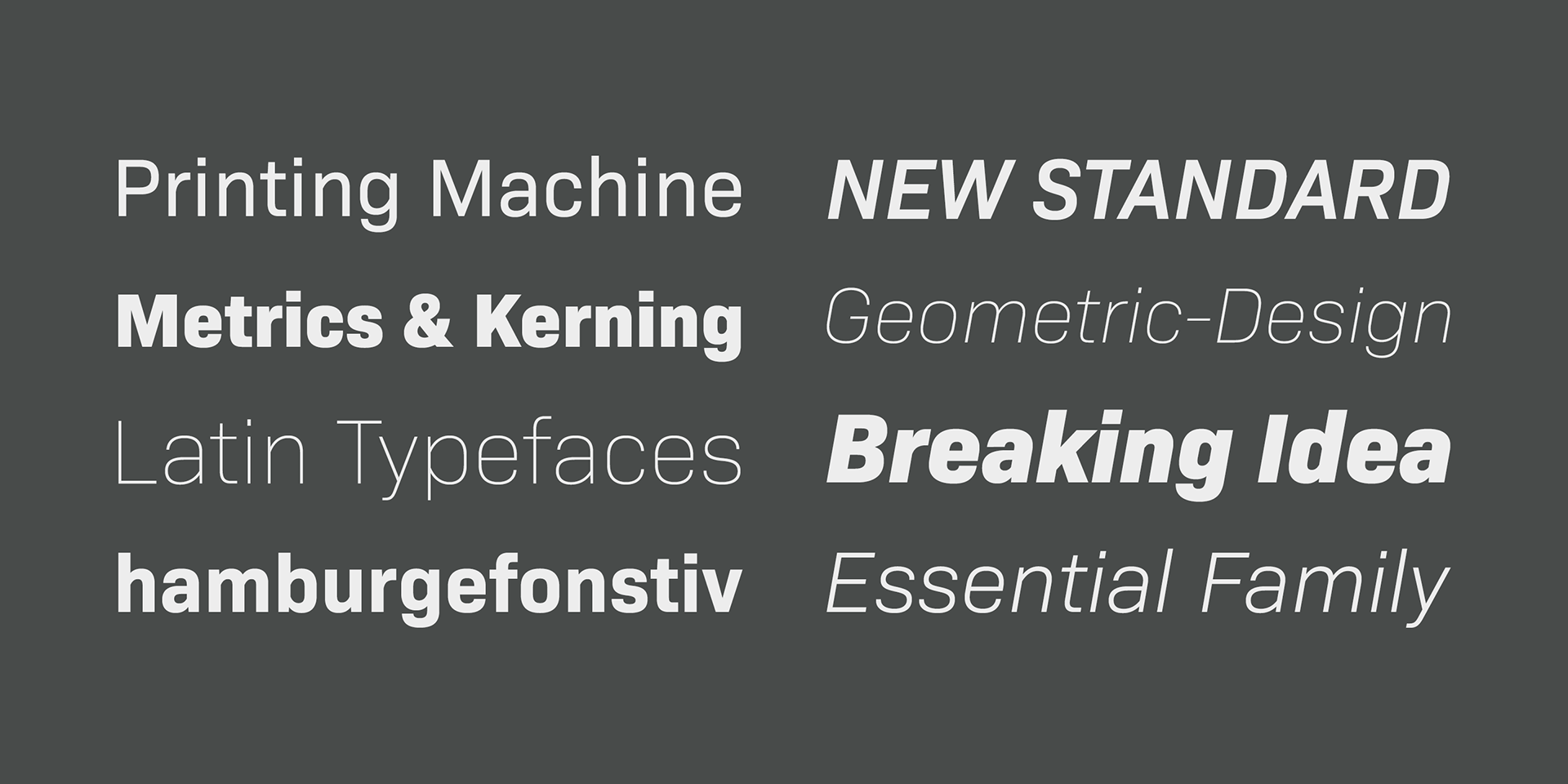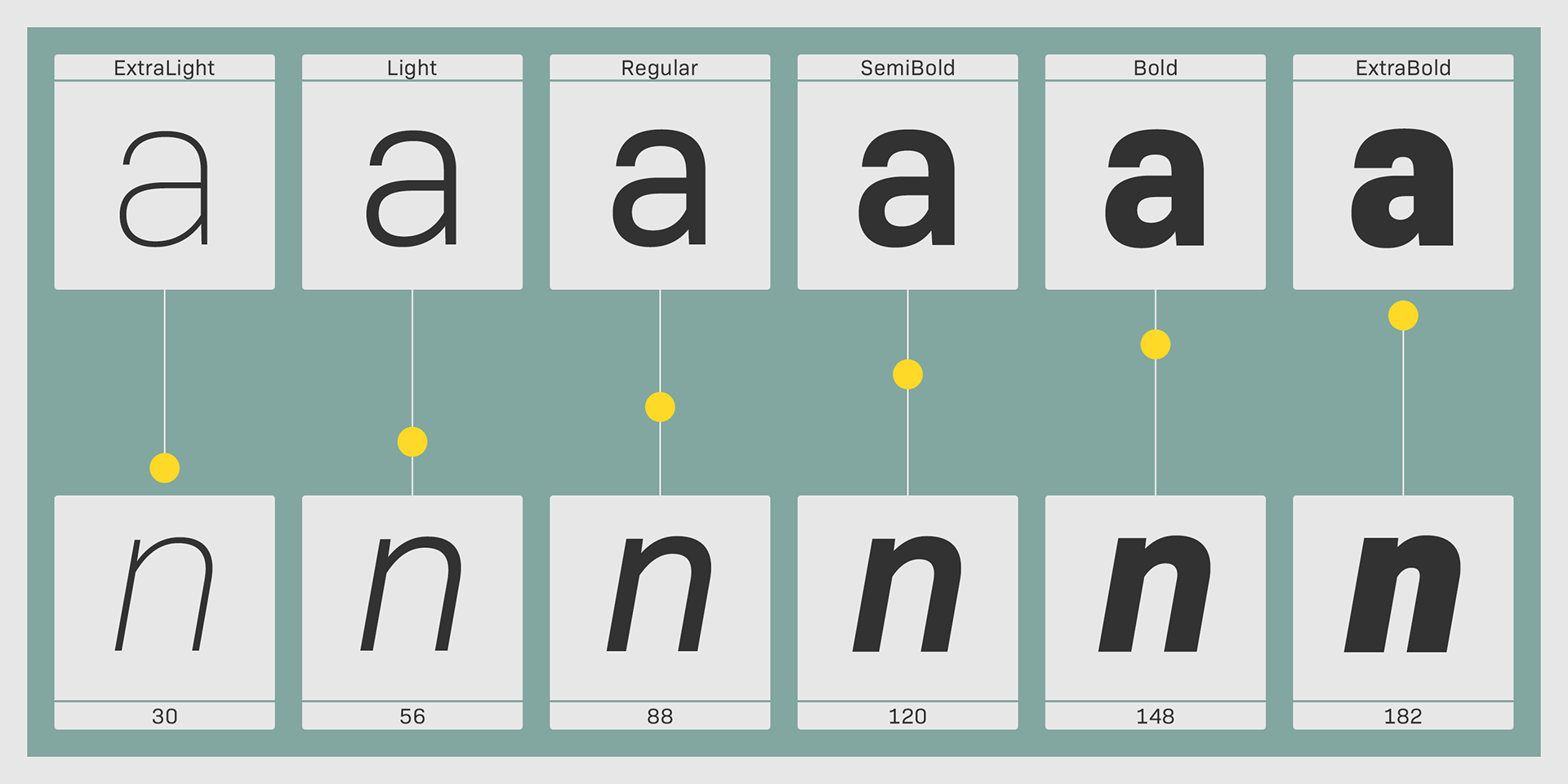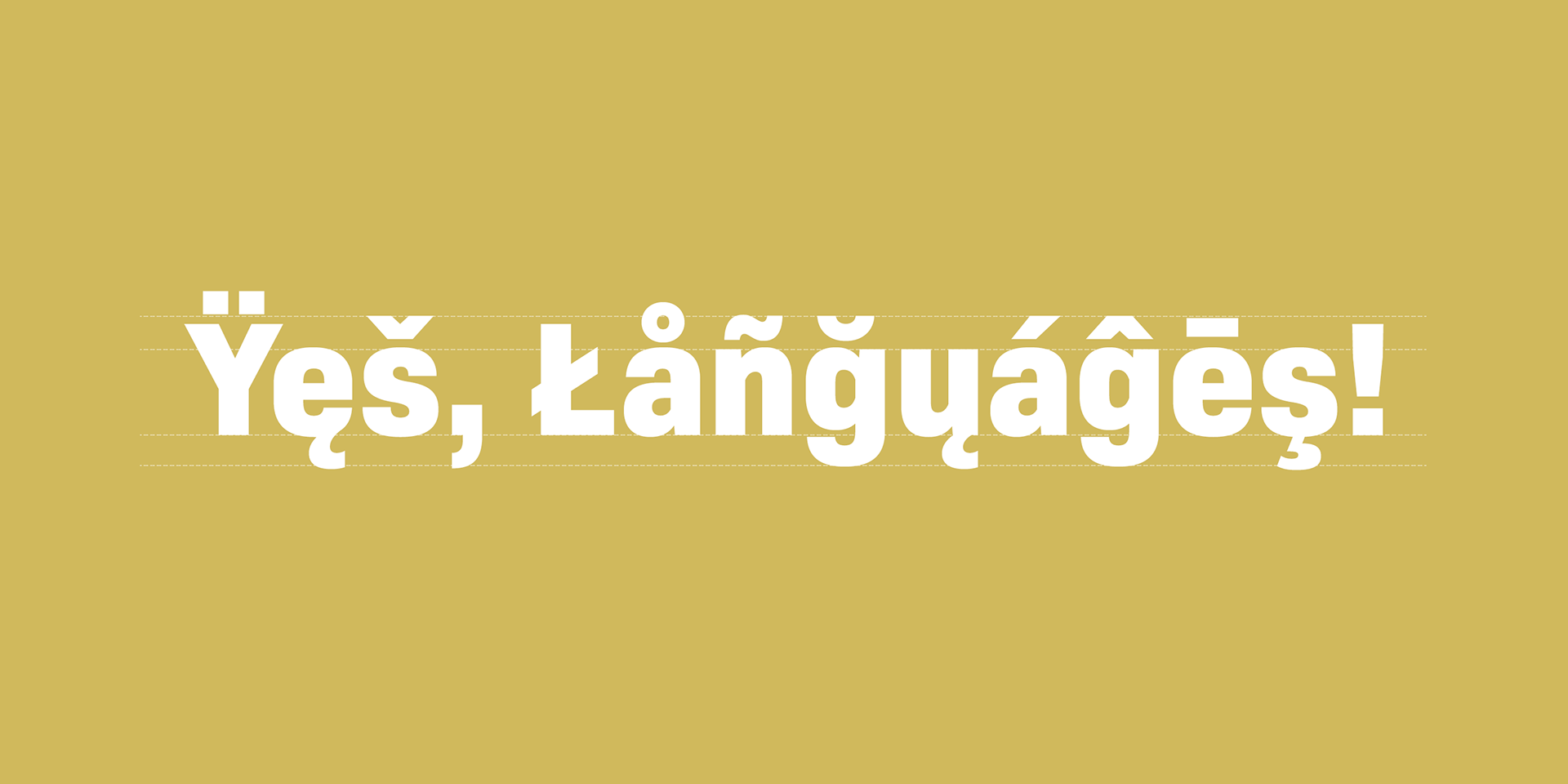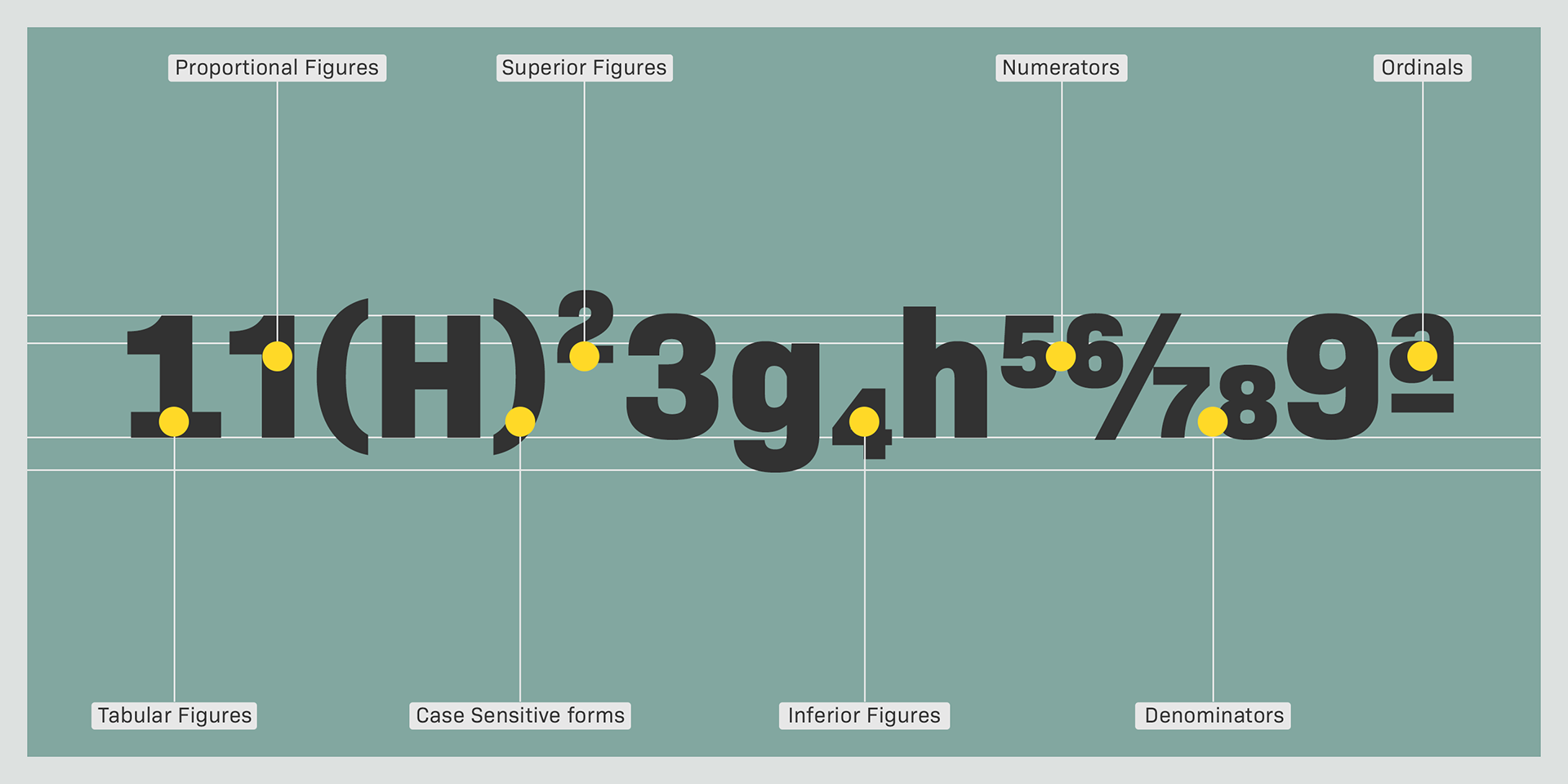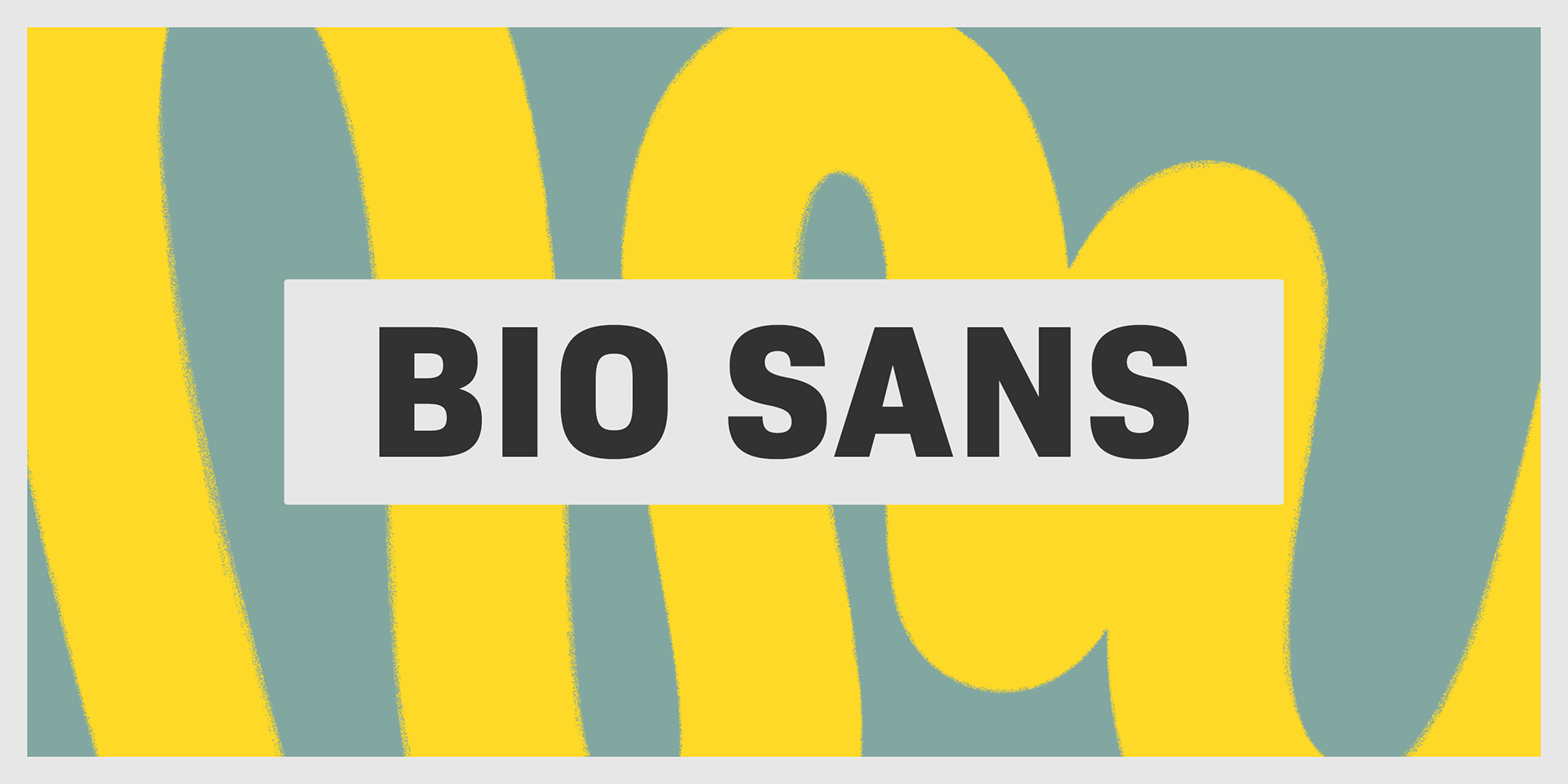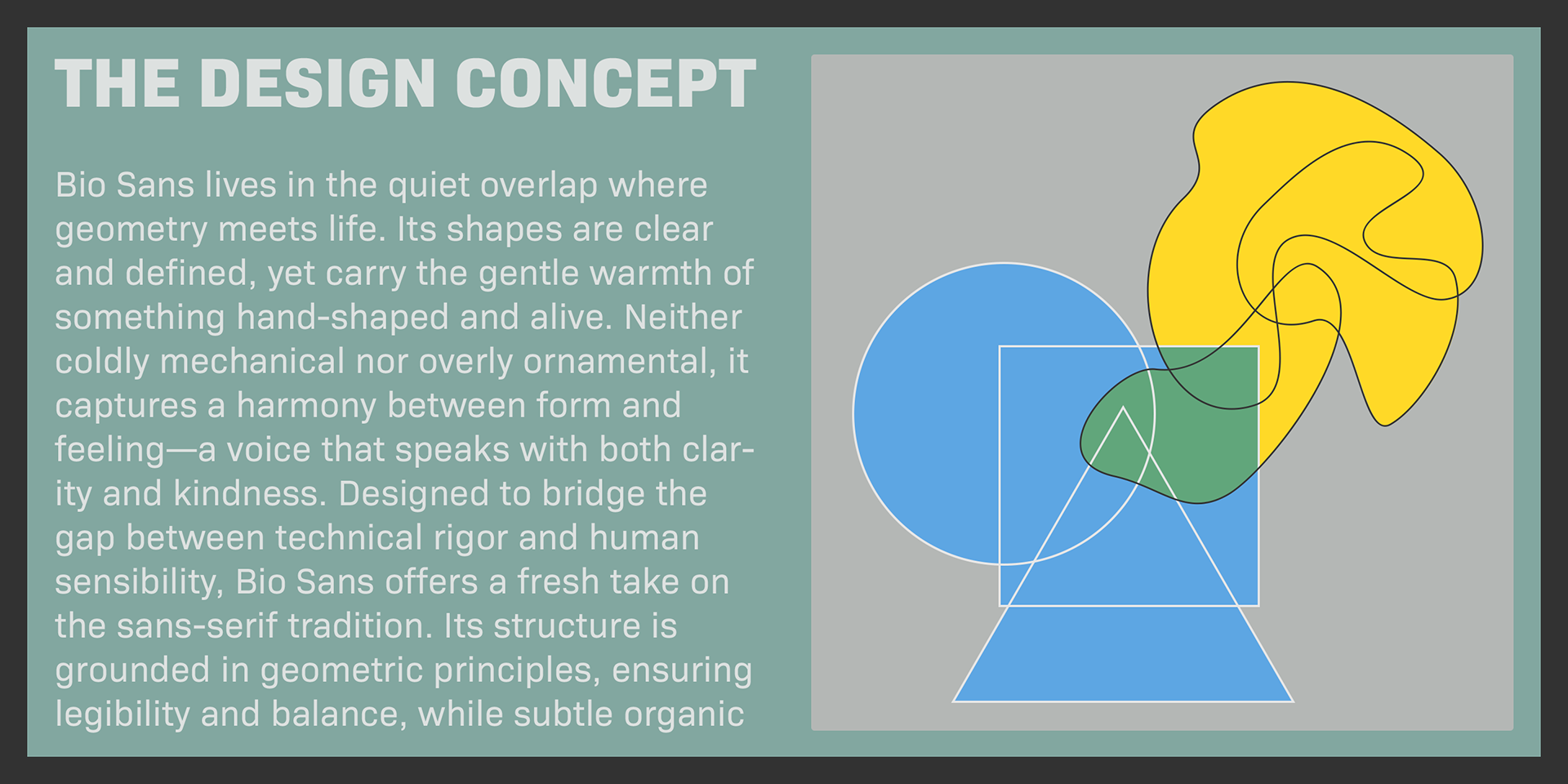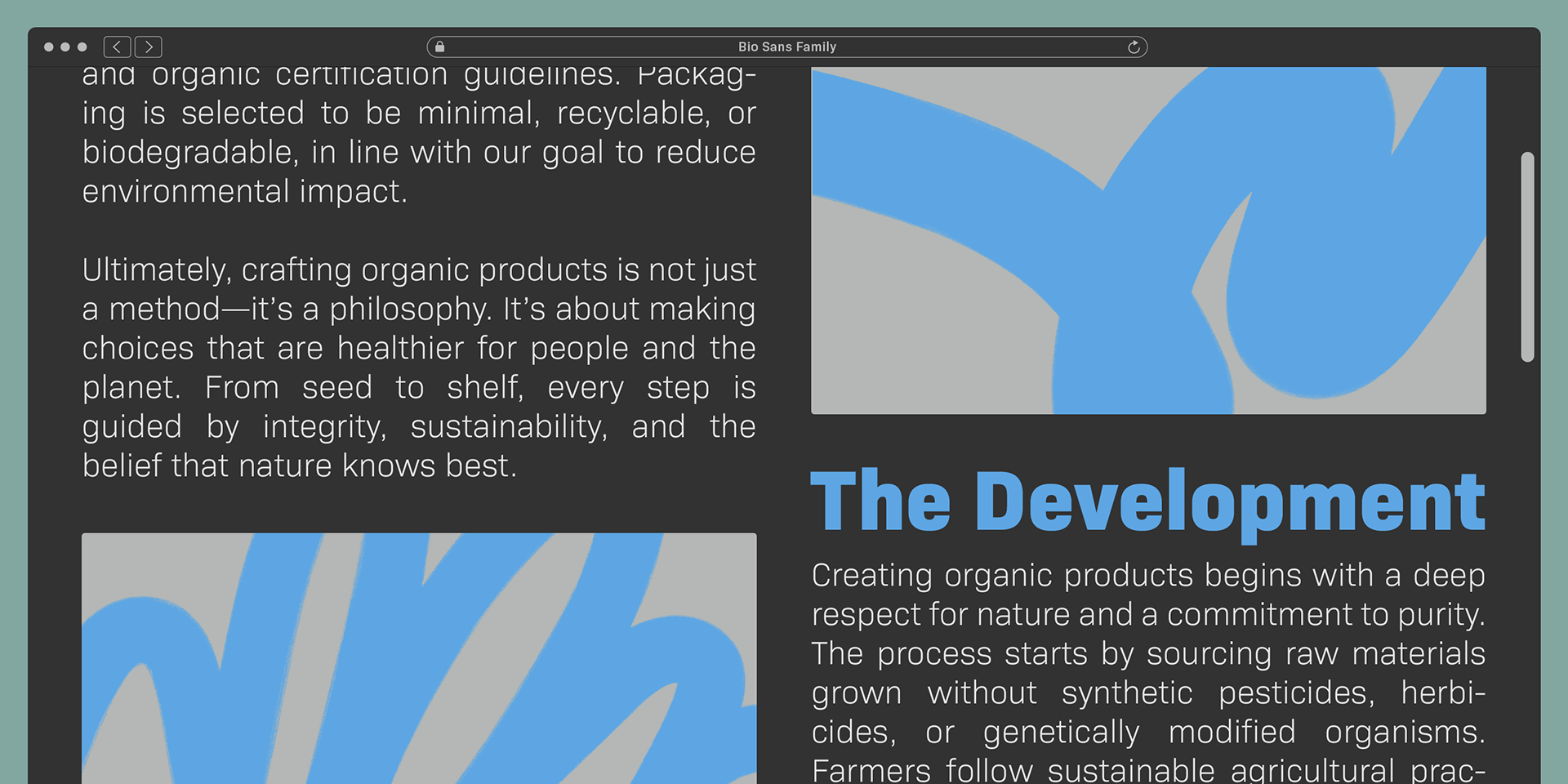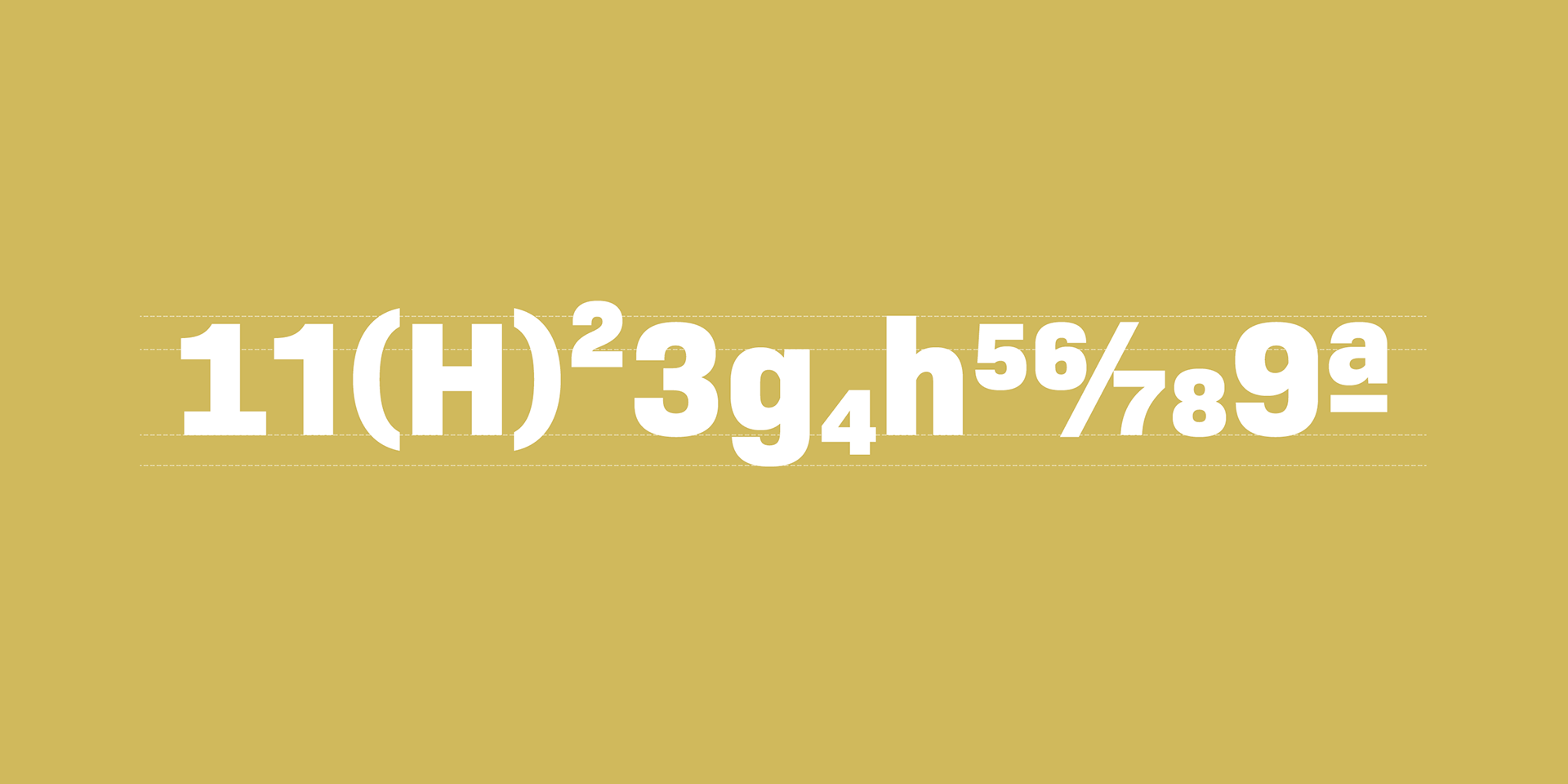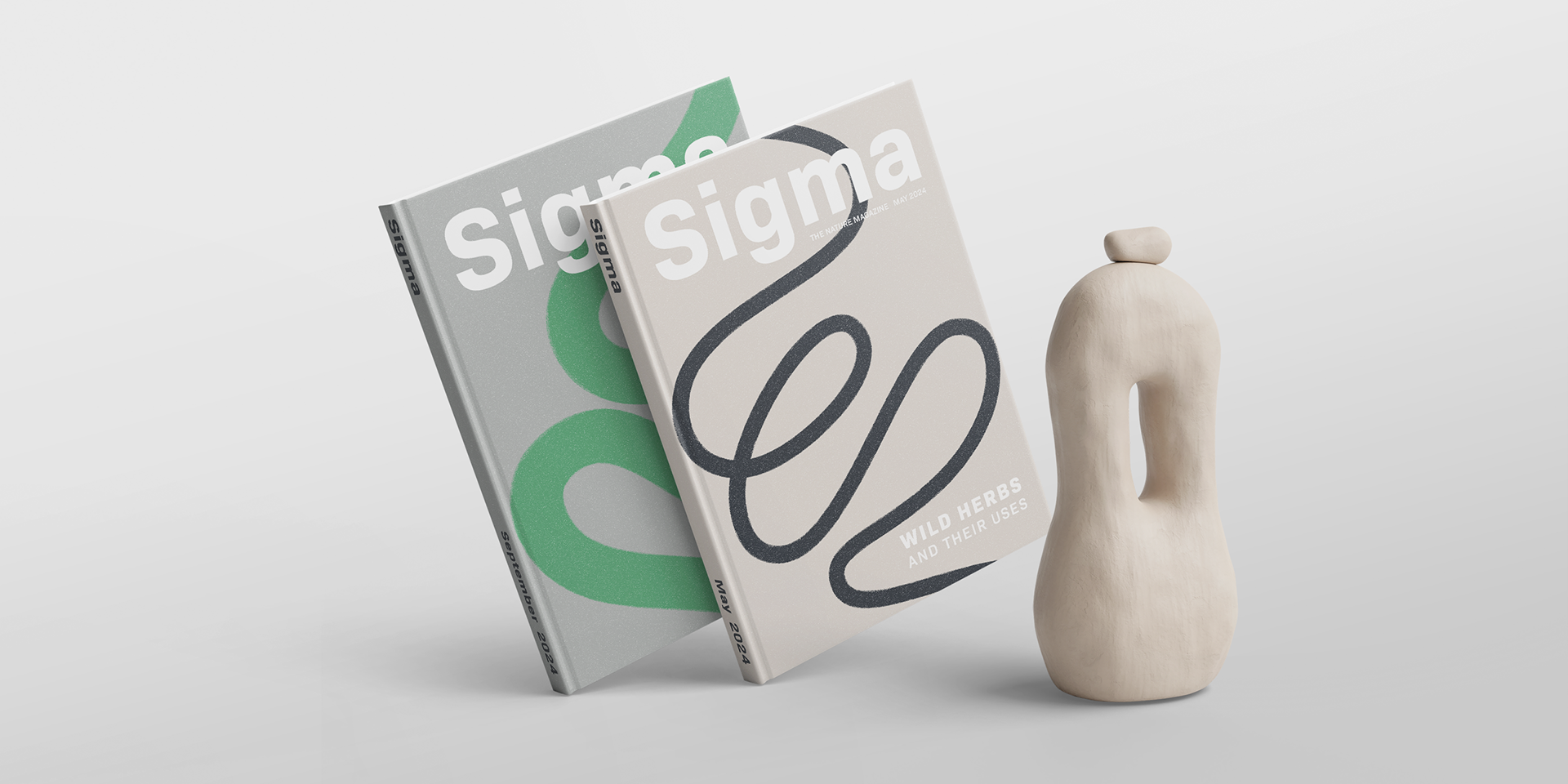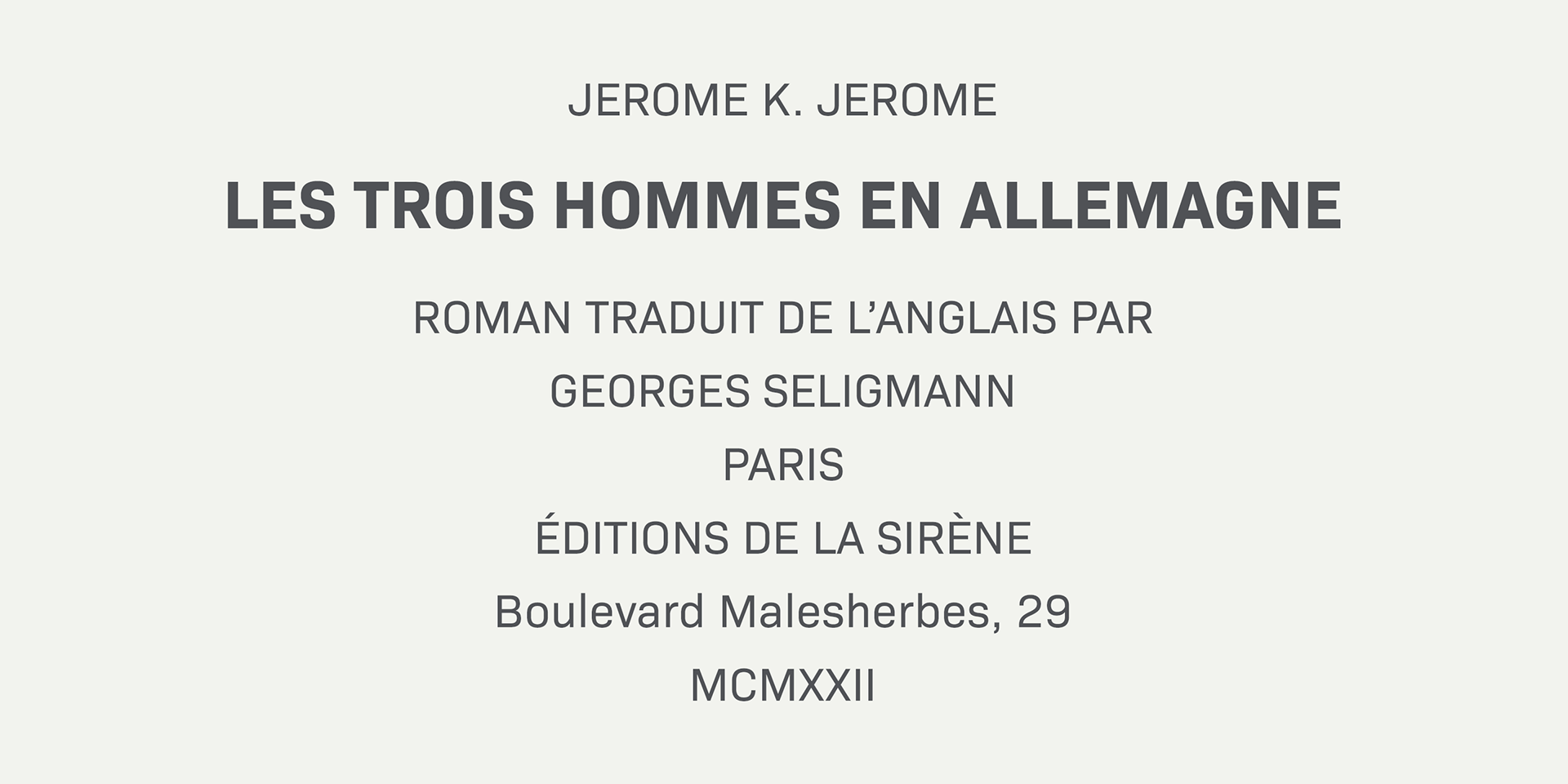
Bio Sans
Bio Sans is a super-neutral sans-serif type family designed by Ryoichi Tsunekawa, crafted specifically for text and optimized for clarity and versatility.
The family includes 6 weights, from ExtraLight to ExtraBold, each with matching italics, providing comprehensive support for a wide range of design needs.
Sharing the core philosophy of the widely popular Bebas Neue, Bio Sans embodies principles of being neutral, natural, minimal, harmless, super-flat, transparent, and above all, legible.
Its letterforms are built on a geometric skeleton, refined with sophisticated optical adjustments, delivering a unified, universal, and unobtrusive appearance—perfect for use across all media and purposes.
With a large x-height, Bio Sans ensures excellent readability, even at small sizes on digital screens.
The font supports a broad range of European languages, including Western, Central, and South Eastern European languages, as well as Afrikaans.
It also features a full suite of OpenType capabilities, including proportional figures, superior/inferior figures, denominators, numerators, fractions, ordinals, and case-sensitive forms, making it ideal for professional, multilingual typography.